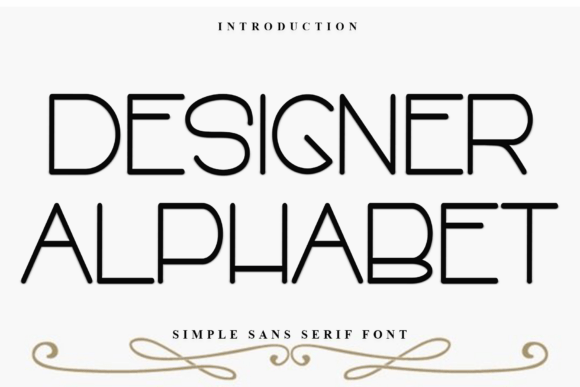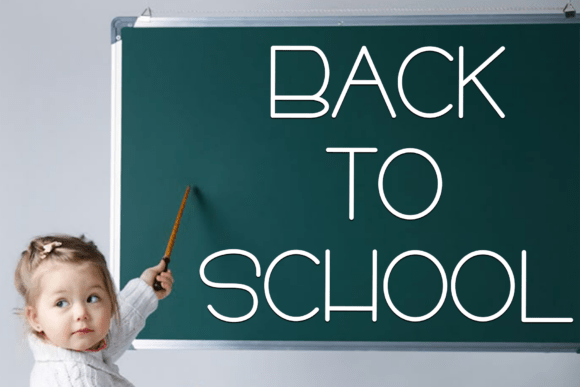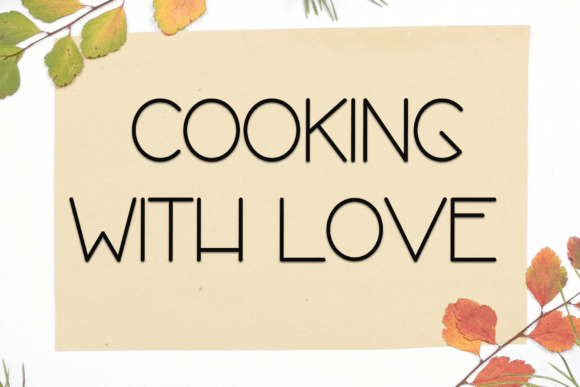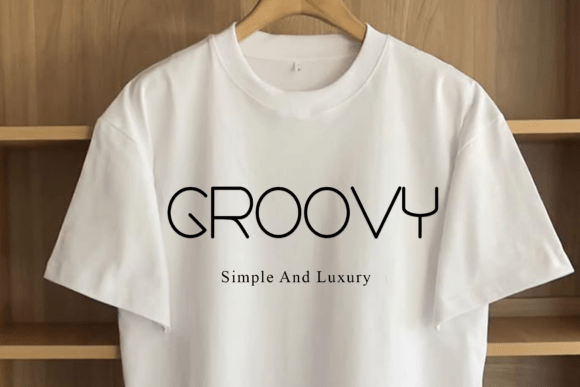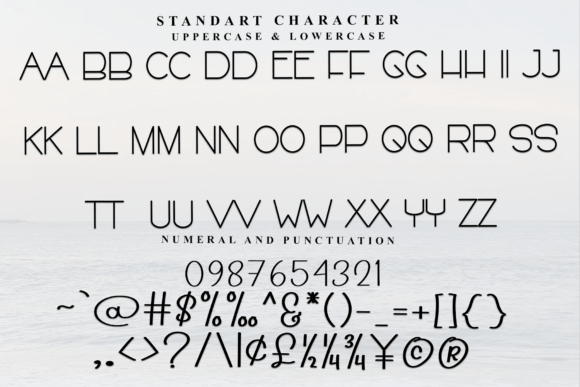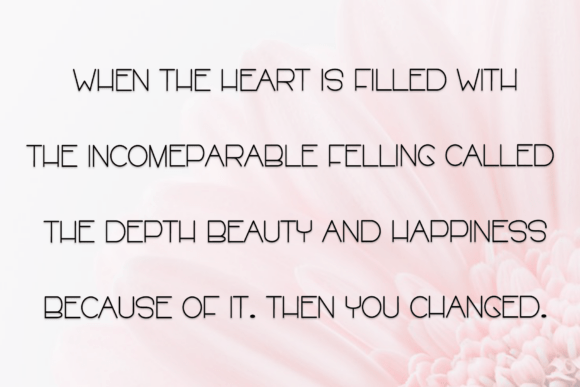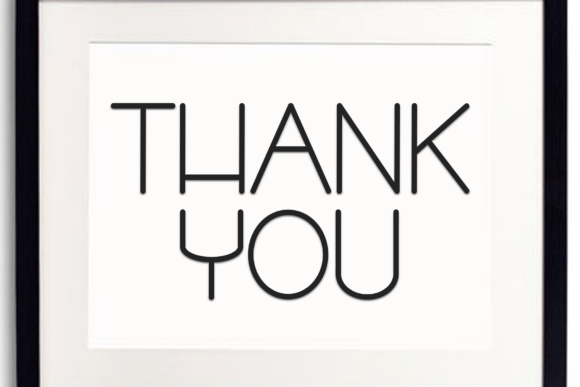
Discover the Timeless Elegance of a Modern Font
As a designer, you’ve spent hours pouring over layouts, tweaking every detail to perfection. And then, it happens – that moment of clarity when everything falls into place. Your brand’s identity, your portfolio’s aesthetic, or your client’s vision all come together in a beautiful, cohesive whole. But what sets the tone for this masterpiece? For many designers, it’s the right font – and that’s where the Designer Alphabet Font comes in.
This sleek, modern sans serif font is more than just a pretty face; it’s a versatile workhorse that provides a clean, legible base for any project. With its uniform line weights and monolinear strokes, the Designer Alphabet Font offers a structural foundation that’s both timeless and on-trend. Whether you’re building a tech brand or a high-fashion lookbook, this font is the perfect choice for designers who crave simplicity, sophistication, and a touch of architectural flair.
Designer Alphabet Font Key Features
- Unique Characteristics: Includes alternate characters, ligatures, and swashes for added creativity and flair
Designer Alphabet Font Review
Overall, I was impressed by the clean and modern design of the Designer Alphabet Font. The font has a professional and sleek appearance that would be perfect for a wide range of applications, from logos to menus.
What works well: ✨ The font is highly legible, making it easy to read even at small sizes. ✨ The font family includes a variety of weights and styles, allowing for a high degree of customization. ✨ The font is highly versatile, suitable for both digital and print applications.
However, I did encounter a few limitations: ⚠️ The font family is not as extensive as some other popular fonts, with only a limited range of languages supported. ⚠️ The font may not be suitable for applications where a high level of expressiveness is required, as it can come across as somewhat sterile.
Overall, I would give the Designer Alphabet Font 4 out of 5 stars. While it has some limitations, its clean design and high level of customizability make it a great choice for a wide range of applications.
- Highly legible and easy to read
- Customizable with a variety of weights and styles
- Suitable for both digital and print applications
- Not as extensive a font family as some other popular fonts
- Only a limited range of languages supported
For optimal results, use the Designer Alphabet Font for titles, headings, and emphasis.
Combine the font with bold or italic styles to create visually appealing effects.
Use the font for branding, logos, and advertisements to create a unique and recognizable style.
Experiment with different font sizes and colors to create a dynamic and engaging design.